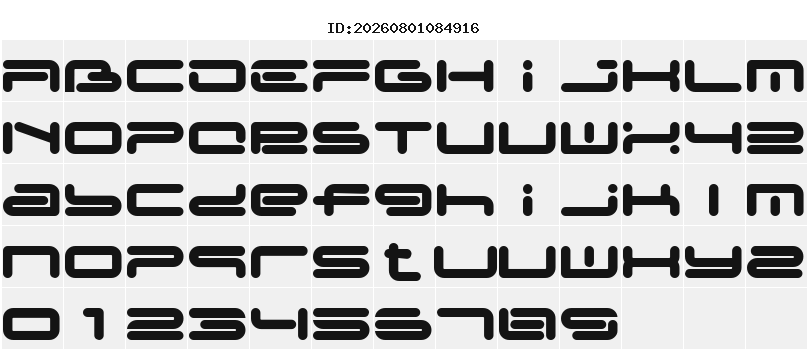
• Font Name: LL_Medien
• Font ID: Macromedia Fontographer 4.1.5 LL_Medien
• Full Font Name: LL_Medien
• Version: Macromedia Fontographer 4.1.5 26.10.2004
• PostScript Name: LLMedien
• Character Count: 115
• Copyright: (c) 2004 Markus Schroeppel, influenced by Yuji Oshimoto's chicory
About LL_Medien.ttf
LL_Medien.ttf is a modern, elegant sans-serif font designed for ultimate readability and visual harmony. Perfect for branding, headlines, web design, and print materials.